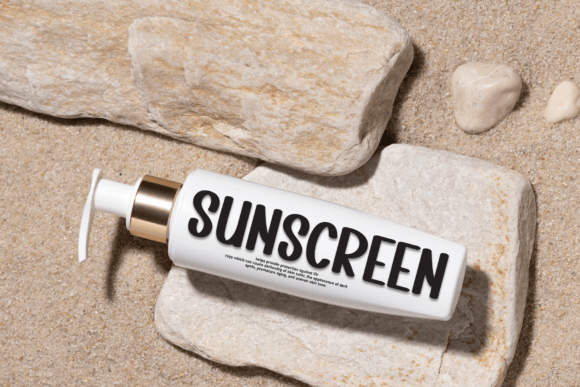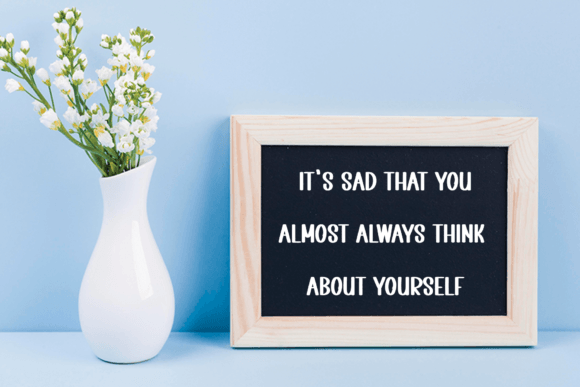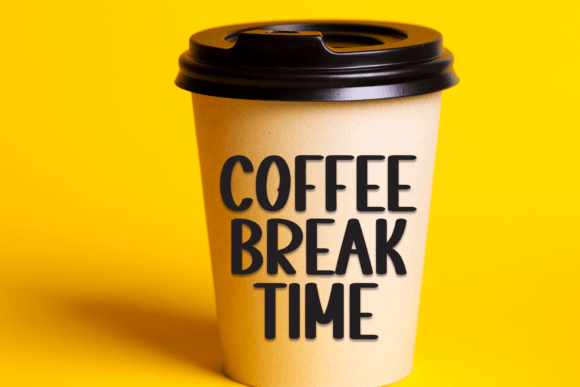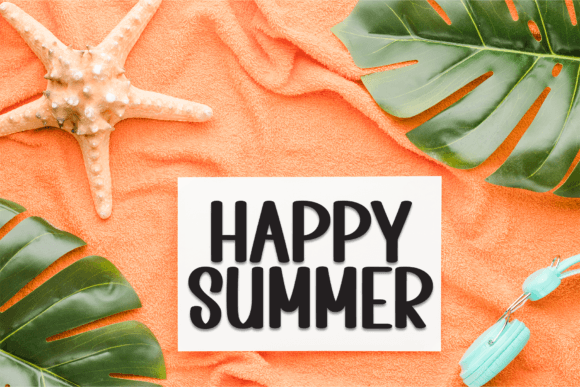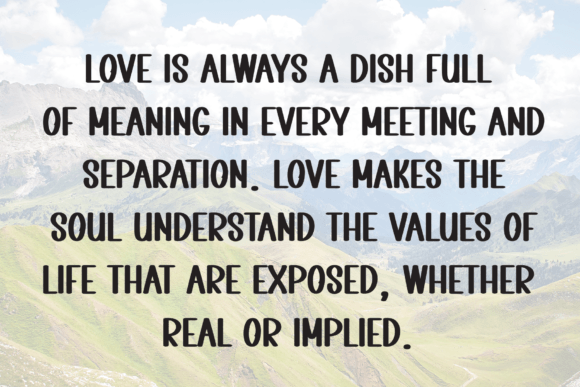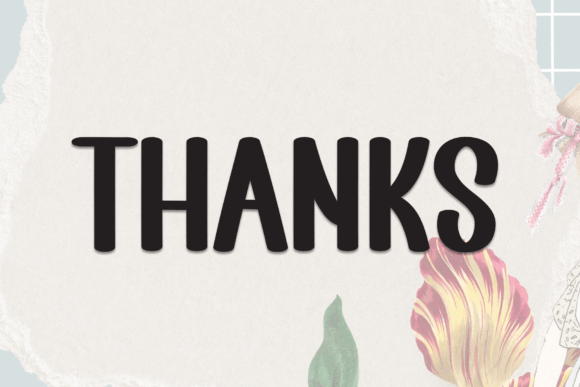
Introducing the Creative Vintage Font: A Charming Handwritten Display Font
Are you looking for a font that can add a touch of sweetness and friendliness to your designs? Look no further than the Creative Vintage Font, a charming, personable handwritten display font that’s perfect for a variety of creative projects. In this article, we’ll take a closer look at this adorable and entertaining typeface, and explore how it can be used to bring a touch of whimsy to your designs.
A Font that’s Full of Character
The Creative Vintage Font is a truly unique and eye-catching typeface that’s sure to capture the attention of your audience. With its playful, handwritten curves and charming imperfections, this font is the perfect solution for designers and crafters who want to add a touch of personality to their work. Whether you’re creating wedding invitations, greeting cards, or social media graphics, this font is sure to bring a smile to people’s faces.
Perfect for Whimsical Designs
So, what makes the Creative Vintage Font so special? For starters, its playful and whimsical design makes it perfect for projects that require a touch of fun and personality. Imagine using this font to create a wedding invitation that’s as sweet as the couple getting married, or a greeting card that’s as cheerful as a sunny day. The Creative Vintage Font is the perfect choice for any design that needs a little extra flair.
Key Features of the Creative Vintage Font
- Handwritten design: The Creative Vintage Font features a beautiful, handwritten design that’s full of character and personality.
- Playful curves: The font’s playful curves and charming imperfections make it perfect for adding a touch of whimsy to your designs.
- High-quality graphics: The font is made up of high-quality graphics that are sure to look great in any design.
Ideas for Using the Creative Vintage Font
So, how can you use the Creative Vintage Font in your designs? Here are a few ideas to get you started:
- Wedding invitations: Use the Creative Vintage Font to create beautiful and unique wedding invitations that set the tone for the big day.
- Greeting cards: Add a touch of whimsy to your greeting cards with the Creative Vintage Font, perfect for birthdays, holidays, and more.
- Social media graphics: Use the font to create eye-catching social media graphics that are sure to grab people’s attention.
- Logos and branding: The Creative Vintage Font can also be used to create unique and memorable logos and branding materials.
Tips for Getting the Most Out of the Creative Vintage Font
To get the most out of the Creative Vintage Font, here are a few tips to keep in mind:
- Experiment with different colors: The Creative Vintage Font looks great in a variety of colors, so don’t be afraid to experiment and find the perfect hue for your design.
- Pair it with other fonts: The font pairs well with other fonts, so try combining it with a sans-serif font for a unique and interesting look.
- Use it sparingly: While the Creative Vintage Font is perfect for adding a touch of whimsy to your designs, it’s best to use it sparingly to avoid overwhelming your audience.
In conclusion, the Creative Vintage Font is a charming, personable handwritten display font that’s perfect for adding a touch of sweetness and friendliness to your designs. With its playful curves, charming imperfections, and high-quality graphics, this font is sure to capture the attention of your audience and bring a smile to their faces. Whether you’re a designer or crafter, the Creative Vintage Font is a great choice for any project that needs a little extra flair.